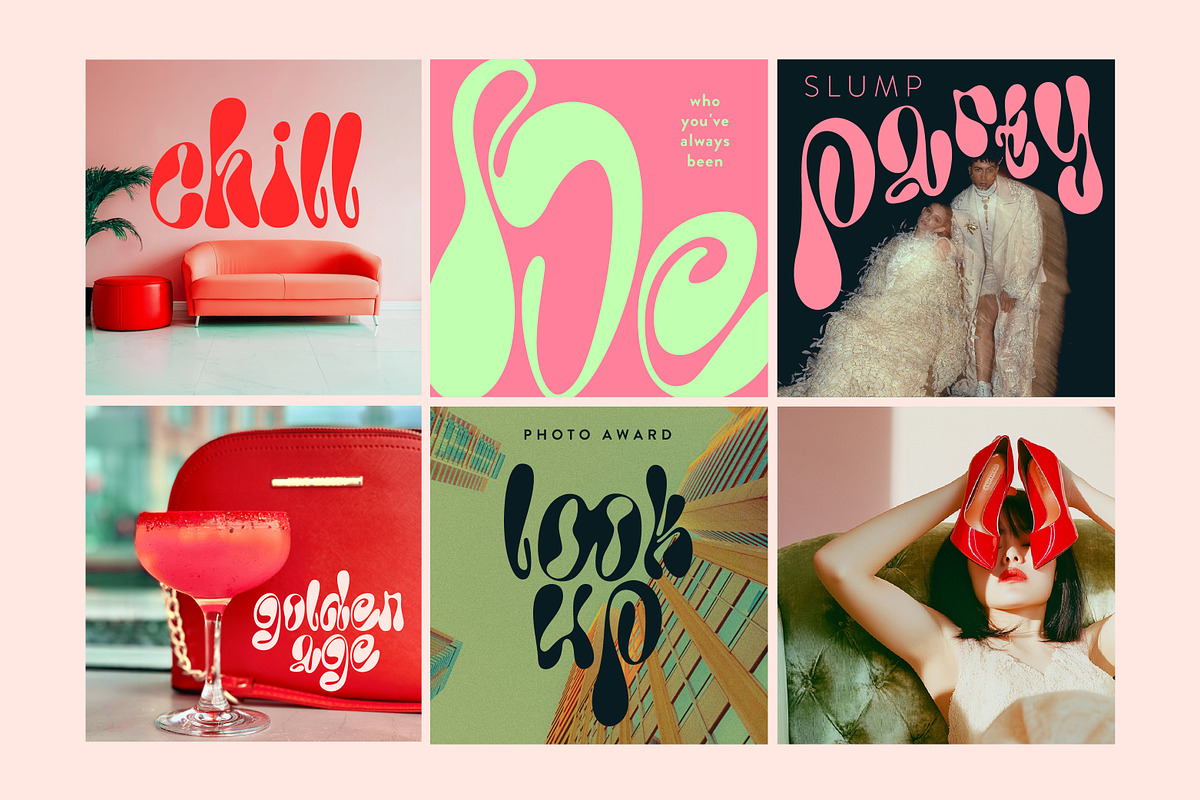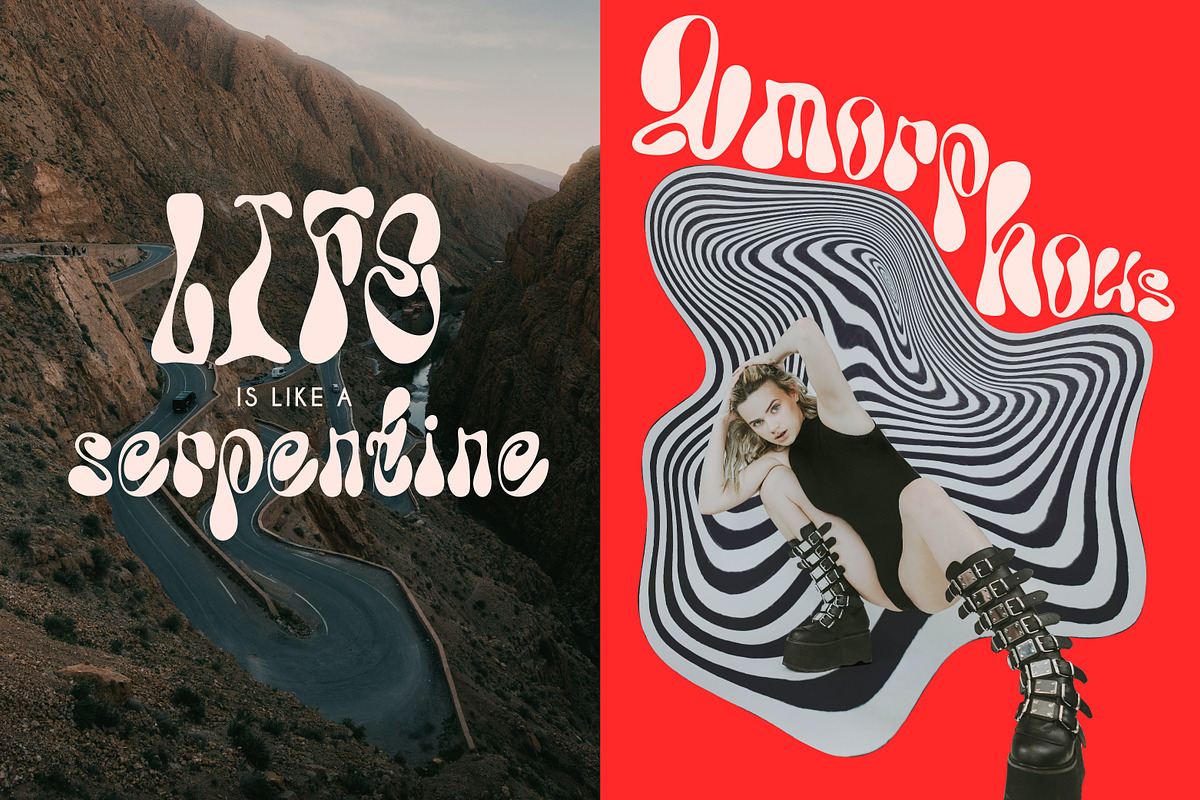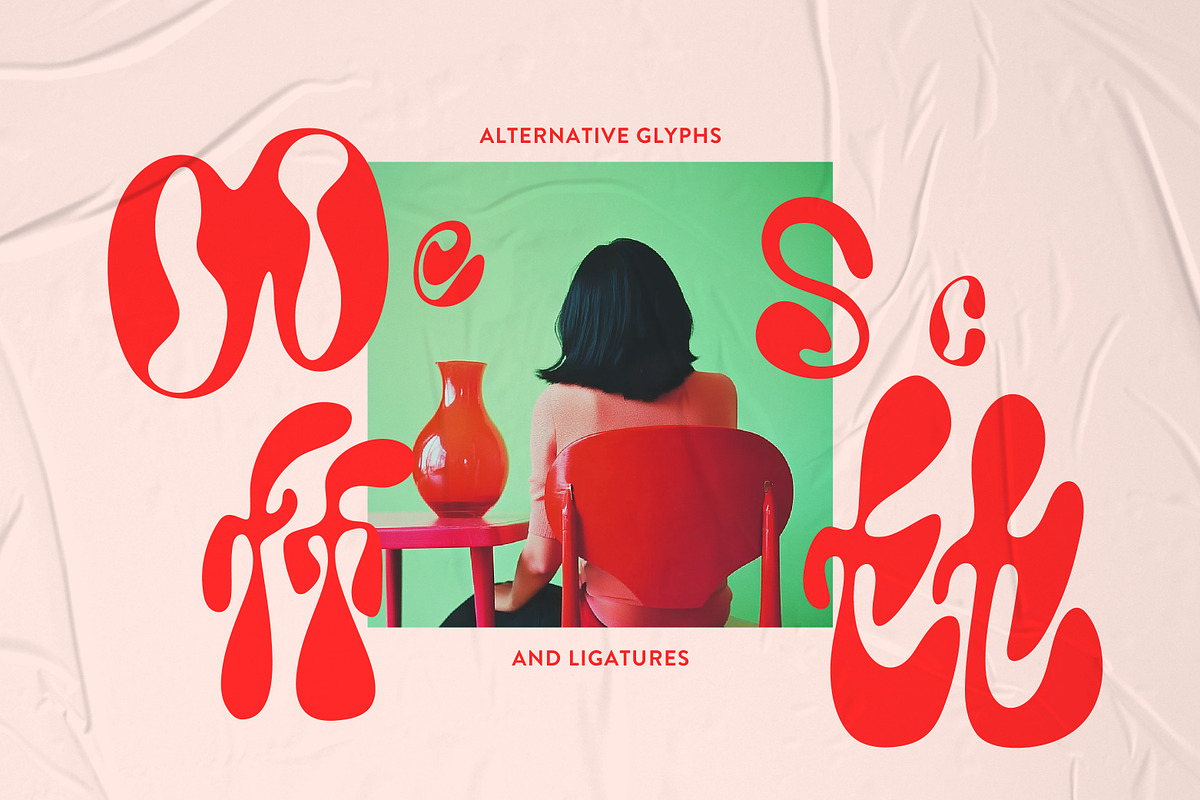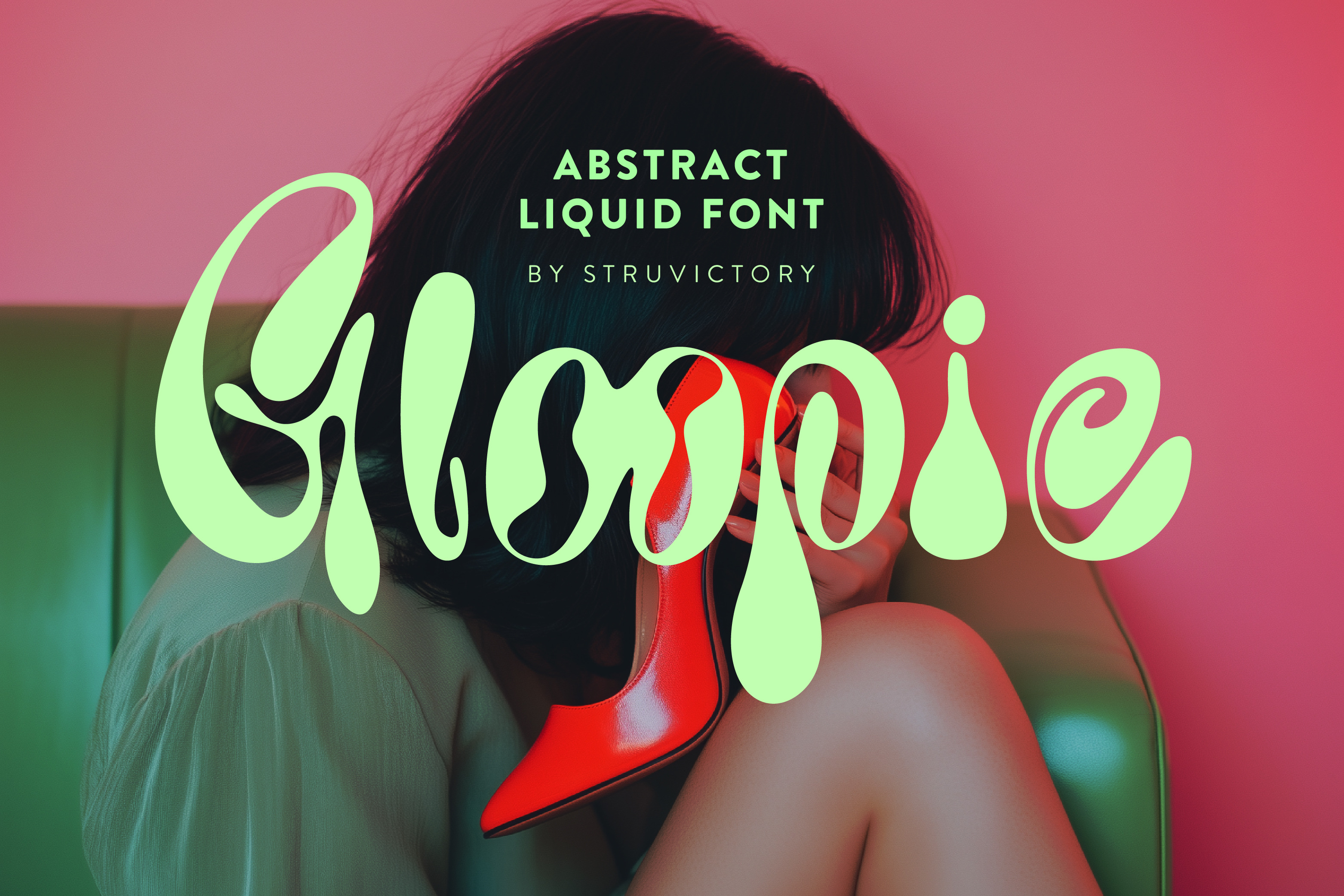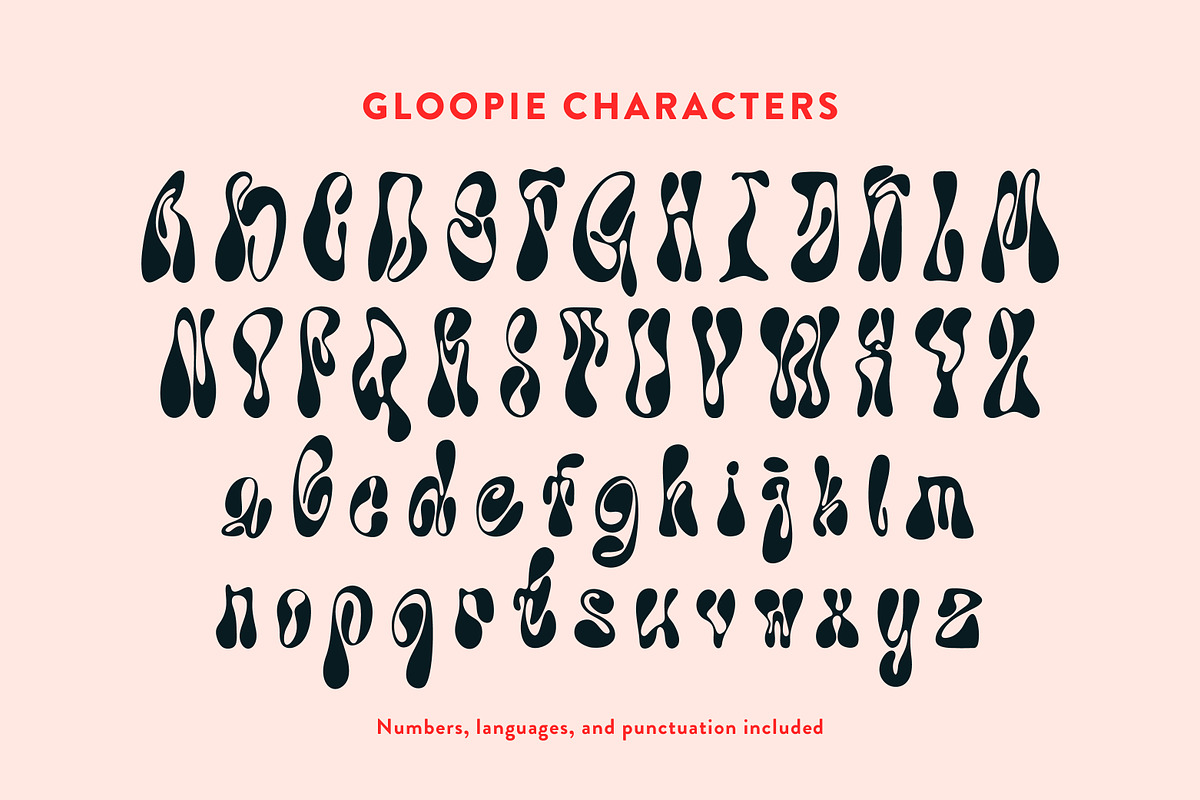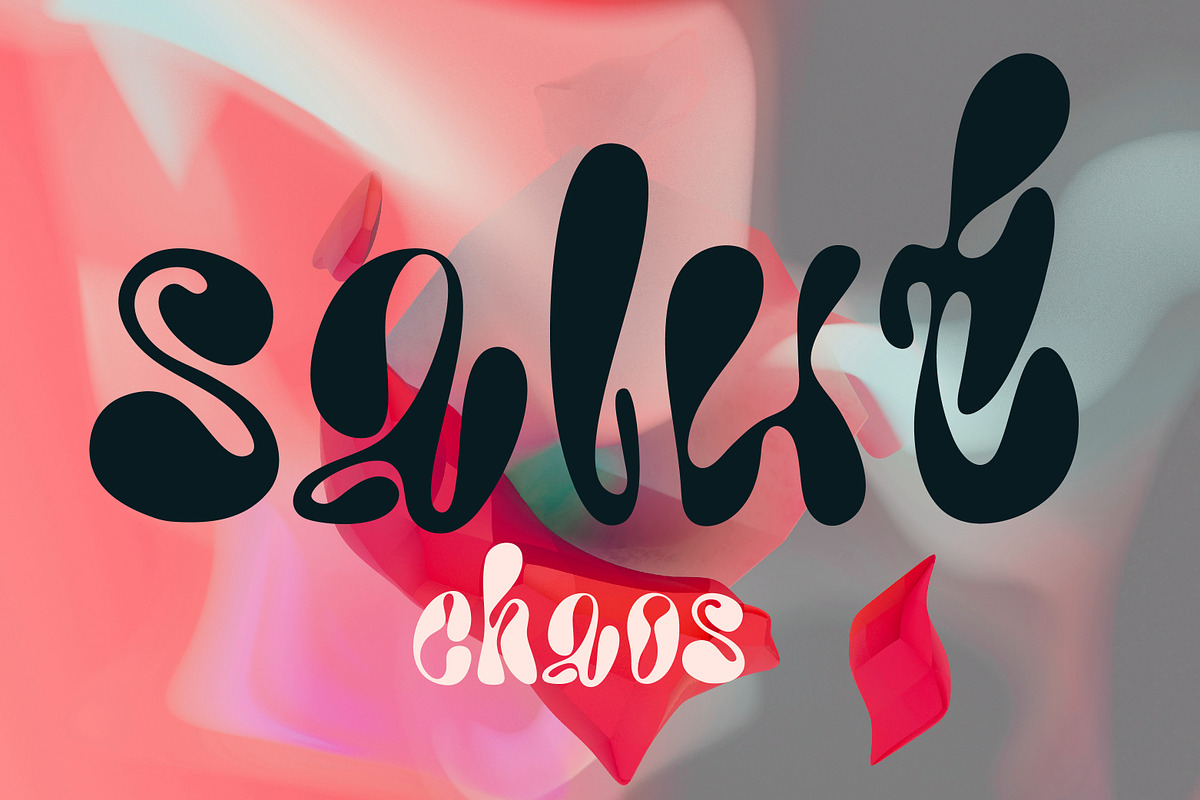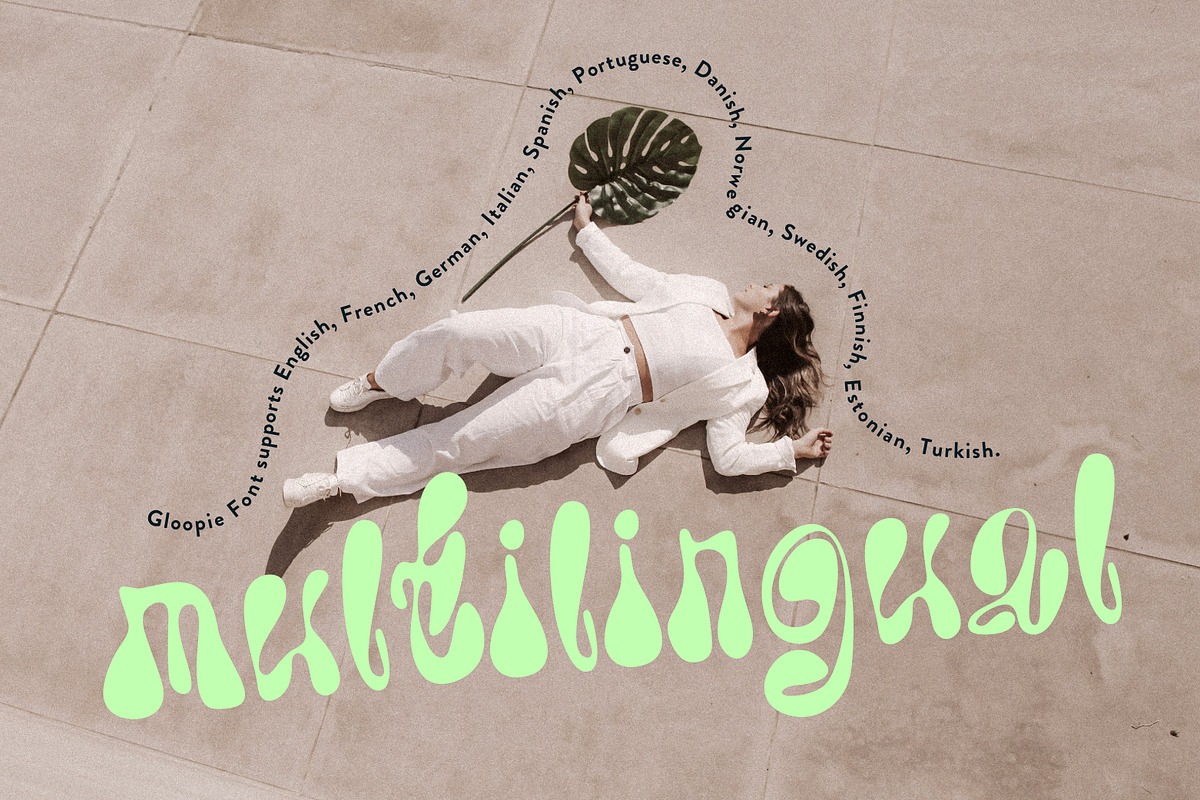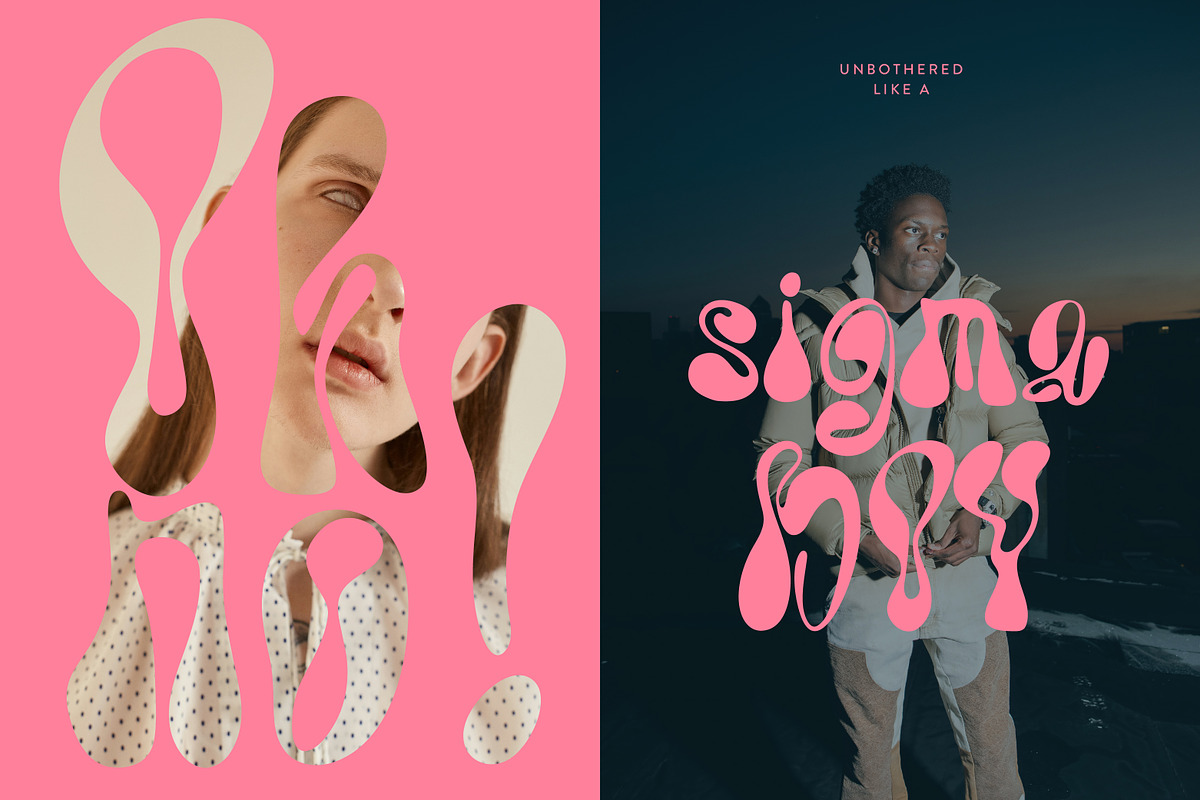
Gloopie Abstract Handwritten Font
Meet Gloopie – a playful, bold, and fluid font that brings personality to every letter. With its smooth curves, bouncy flow, and quirky ligatures (especially those fun "oo" connections!), Gloopie is perfect for eye-catching logos, vibrant posters, stylish branding, and trendy apparel. This handcrafted font blends retro charm with a modern twist, making your designs feel more personal and unique. Unlike standard fonts, an authentic, custom design like Gloopie adds a distinct, hand-drawn character that stands out in a world of repetition.
The font Gloopie includes the most popular latin-based languages, you can check the symbol you need by typing a couple of words in the font preview box. There are also ligatures oo, tt, ff and alternative glyphs c, e, s.